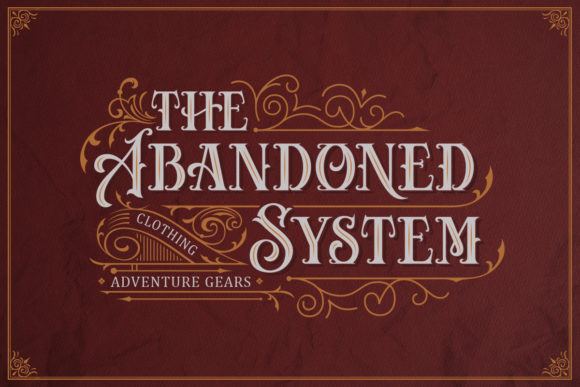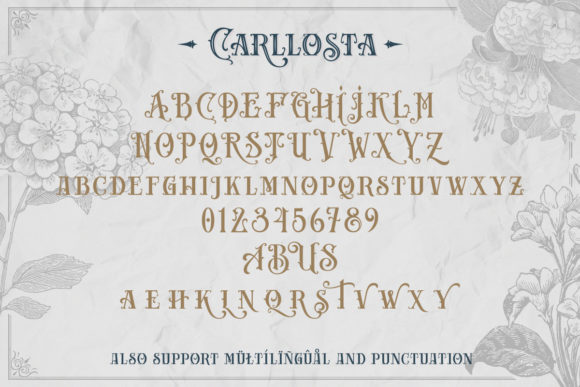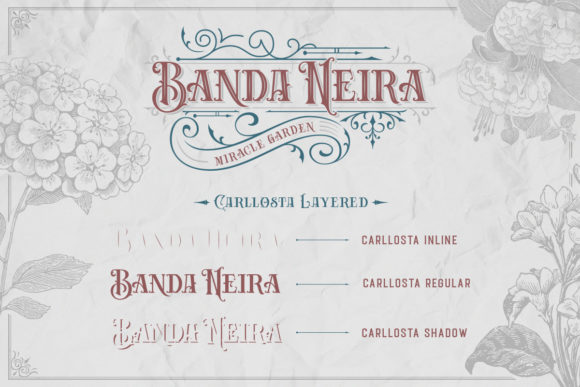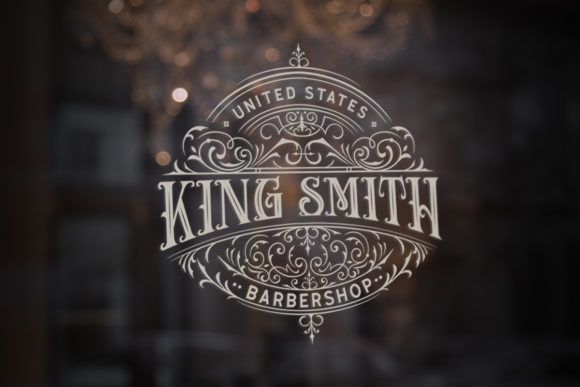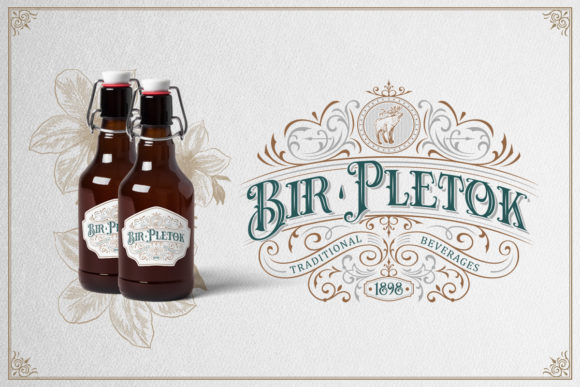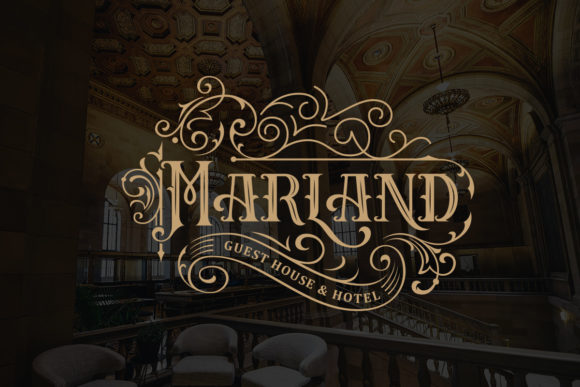
Introduction to Carllosta Font
Have you ever found yourself scrolling through your design archives, reminiscing about a creative project that once sparked your imagination? Perhaps it was a bold typography choice or a clever use of texture that caught your eye. For me, it’s often the nostalgia of vintage typography that brings a smile to my face. And that’s exactly what inspired me to dive into the world of Carllosta Font – a carefully crafted display font with a vintage twist.
Carllosta Font is a one-of-a-kind design resource that’s sure to elevate any creative project. With its intricate layering and high-quality design, this font is a true eye catcher. Whether you’re a seasoned designer or just starting out, Carllosta Font is a valuable addition to any design library. And the best part? It’s available for free download, complete with a transparent background, making it easy to integrate into your designs.
As designers, we’re always on the lookout for unique and high-quality design resources to help us bring our creative visions to life. And with Carllosta Font, you’ll find that it’s the perfect combination of style and substance. So why not give it a try and see how this vintage-inspired font can add some magic to your next design project?
Key Features of Carllosta Font
- High-quality design resource ideal for creative projects requiring a sophisticated look
- Features a clean and elegant design, perfect for use in logos, branding, and typography-based projects
Honest Review: Carllosta Font
As a designer, I’m always on the lookout for high-quality design resources to elevate my creative projects. Recently, I came across the Carllosta Font, and I must say, it’s a great addition to my design arsenal.
What works well: ✨ The Carllosta Font is incredibly versatile, making it suitable for a wide range of creative projects, from logos to typography-based designs. The font is also available for free download, which is a massive plus for designers on a budget. I particularly appreciate the transparent background option, which allows for seamless integration with other design elements.
- Highly versatile
However, there are a few limitations: ⚠️ The font may not be suitable for very small text sizes, and the weight of the font can make it difficult to read in certain contexts. Additionally, the font family is relatively small, so you may need to use other fonts to create a cohesive look.
Overall, I’m impressed with the Carllosta Font, and I would definitely recommend it to designers looking for a high-quality, free design resource. While it may have some limitations, its versatility and transparent background make it a valuable addition to any design project.
The Carllosta Font is a high-quality design resource ideal for creative projects. This versatile font offers a unique and elegant style that can elevate any design. It’s available for free download with a transparent background, making it easy to integrate into various design applications.
The Carllosta Font is ideal for a variety of design projects, including:
1. Business cards and stationery.
2. Branding and marketing materials.
3. Digital invitations and social media graphics.